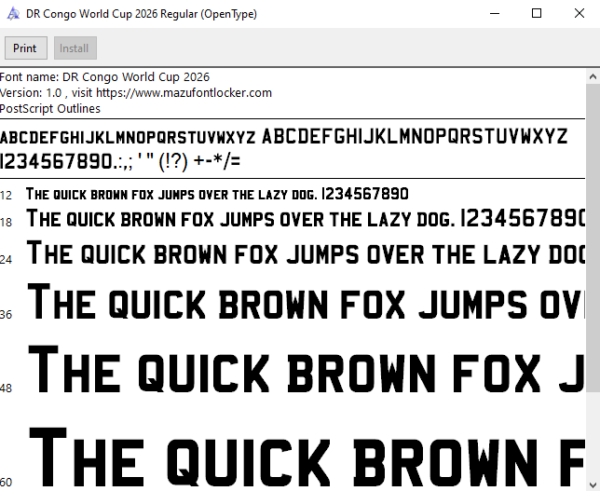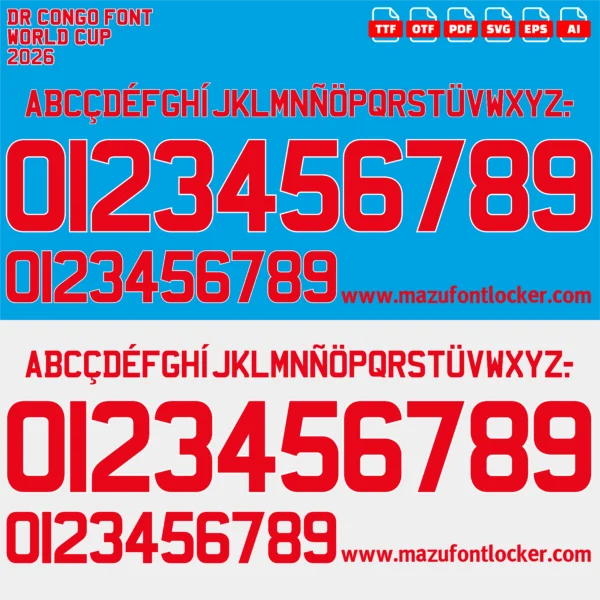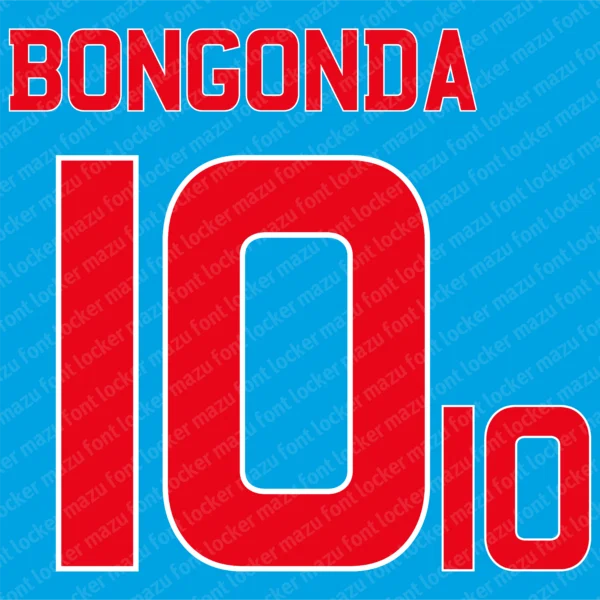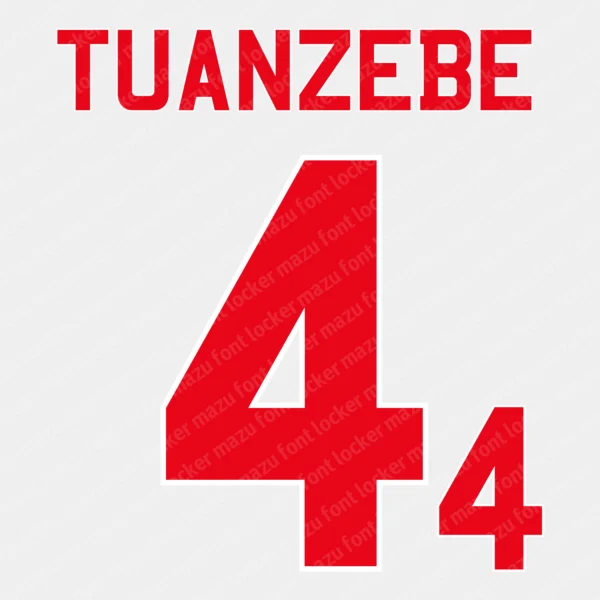
DR Congo World Cup 2026 Font Vector – Epic Leopards Ferocious Masterpiece
This premium font captures the commanding, iconic, majestic, and battle-ready lettering that embodies the unstoppable Congolese spirit — delivering raw African fire, explosive winning energy, relentless never-say-die mentality, tactical supremacy, and legendary revolutionary warrior grit.
DR Congo World Cup 2026 Font Vector – Authentic Leopards Typeface
The DR Congo World Cup 2026 Font Vector is a premium typeface that accurately recreates the official match lettering worn by the DR Congo national team during the 2026 FIFA World Cup campaign. This high-quality vector font kit captures the bold, fierce, and dynamic typography that represents the pride, passion, and rich football heritage of the Leopards.
Designed for professional designers and passionate DR Congo fans, the DR Congo World Cup 2026 Font Vector delivers perfect authenticity for creating realistic jersey mockups, fan merchandise, matchday posters, social media graphics, and African football content. It pairs beautifully with the iconic sky-blue and red kit featuring the famous Leopards crest.
This font stands out because of its sharp vector precision and strong national identity. Every letter and number is crafted to match the exact style used on the players’ shirts during the 2026 World Cup campaign. Whether you are making realistic kit templates or exciting Leopards content, the DR Congo World Cup 2026 Font Vector gives your designs that authentic DR Congo look.
The letterforms in the DR Congo World Cup 2026 Font Vector are tall, bold, and highly readable. The strokes have a strong, clean weight with excellent edge definition that looks powerful on the back of jerseys while maintaining classic Congolese spirit and modern strength.
• Full uppercase A–Z and numbers 0–9 in authentic DR Congo World Cup 2026 style
• Create highly realistic DR Congo World Cup 2026 home and away jersey mockups with accurate lettering
• Produce custom DR Congo merchandise with the 2026 aesthetic
DR Congo World Cup 2026 Campaign
The 2026 FIFA World Cup saw the Leopards return to football’s greatest stage for the first time since 1974. DR Congo delivered passionate and disciplined performances, showcasing technical skill, tactical organization, and the fighting spirit that defines Congolese football.
Veteran stars and emerging talents from the domestic league and diaspora united to create memorable moments for the nation. The campaign further strengthened DR Congo’s growing reputation as a competitive force in CAF and world football.
The DR Congo World Cup 2026 Font Vector is an independently designed typeface package. It is carefully crafted to replicate the official shirt lettering style of the 2026 World Cup season. This font kit is perfect for creative projects, fan edits, nostalgic jersey designs, and custom football graphics.